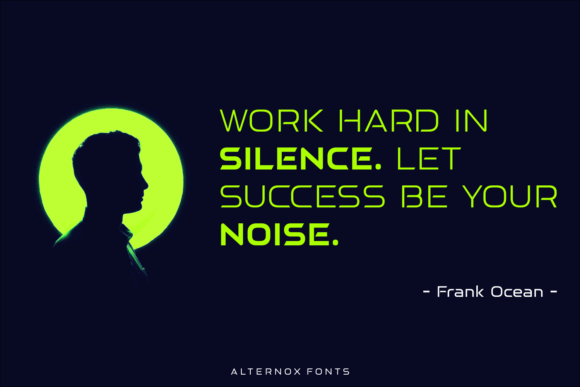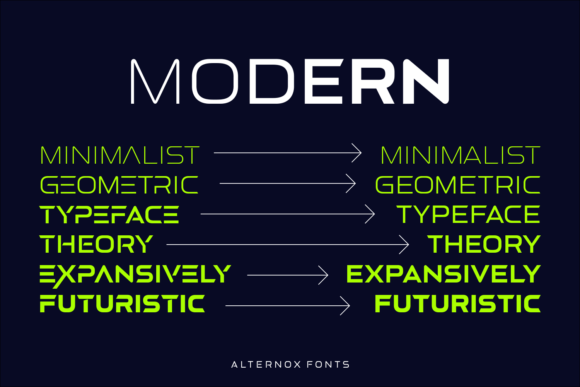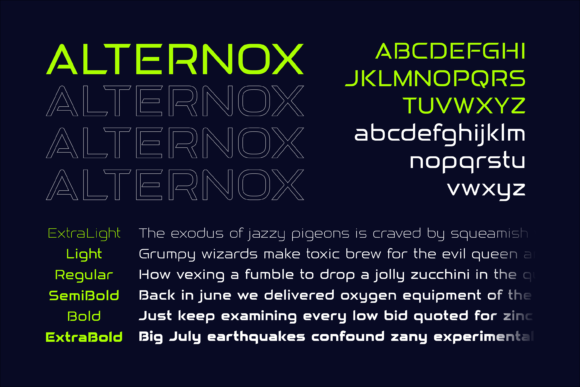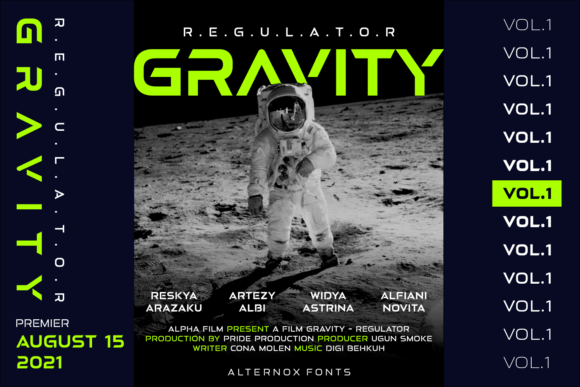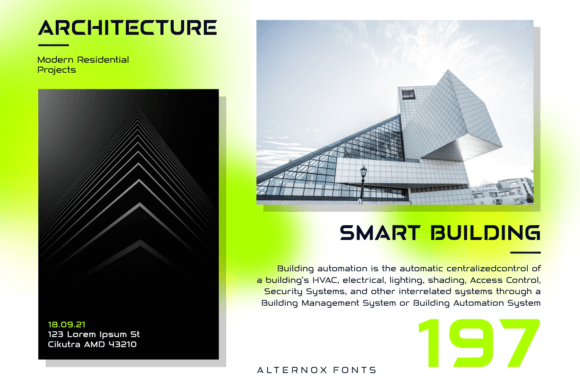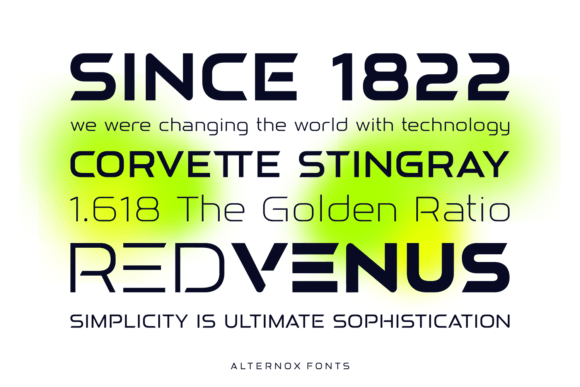
Introducing Alternox Font: The Ultimate Futuristic Sans Serif Font
In the world of typography, a font can make or break a design. For designers and crafters looking for a modern, clean, and professional look, Alternox Font is the perfect solution. This futuristic multipurpose sans serif font family is designed with sophisticated geometric shapes, making it ideal for a wide range of projects.
What Makes Alternox Font Stand Out?
Alternox Font is not just another sans serif font. Its unique geometric shapes give it a futuristic feel that’s perfect for designs that require a modern touch. The font is versatile and can be used for various projects, including logos and brand identity, technology, business cards, web design, stationery, displays, sports, and more.
Key Features of Alternox Font
- Multipurpose: Alternox Font is designed to be versatile and can be used for a wide range of projects, from digital designs to print materials.
- PUA Encoded: The font is PUA (Private Use Area) encoded, which means you can access all the glyphs and ligatures with ease. This feature makes it easy to use and customize the font to suit your design needs.
- Geometric Shapes: The font features sophisticated geometric shapes that give it a modern and clean look.
- Sans Serif: The sans serif design of Alternox Font makes it perfect for digital designs, as it remains clear and legible even at small sizes.
Use Cases for Alternox Font
Alternox Font is perfect for designers and crafters who want to create modern and professional designs. Here are some use cases where Alternox Font shines:
- Logos and Brand Identity: Create a lasting impression with a unique and modern logo that stands out from the crowd.
- Technology: Use Alternox Font to create a futuristic and modern look for technology-related designs, such as software interfaces, apps, and websites.
- Business Cards: Make a great impression with a clean and professional business card design that showcases your brand’s personality.
- Web Design: Use Alternox Font to create a modern and responsive website that adapts to different screen sizes and devices.
- Stationery: Add a touch of modernity to your stationery designs, such as brochures, flyers, and posters.
- Displays: Use Alternox Font to create eye-catching display designs, such as billboards, signage, and exhibition displays.
- Sports: Create a bold and modern look for sports-related designs, such as team logos, jerseys, and sports equipment.
Why Choose Alternox Font?
With so many fonts available, why choose Alternox Font? Here are a few reasons:
- Unique Design: Alternox Font has a unique and futuristic design that sets it apart from other fonts.
- Versatility: The font is multipurpose and can be used for a wide range of projects.
- Easy to Use: Alternox Font is PUA encoded, making it easy to access all the glyphs and ligatures.
- Modern and Clean: The font has a modern and clean look that’s perfect for designs that require a professional touch.
Alternox Font is the perfect solution for designers and crafters looking for a modern, clean, and professional font. With its unique geometric shapes, versatility, and ease of use, Alternox Font is ideal for a wide range of projects. Whether you’re creating logos and brand identity, technology designs, business cards, or web designs, Alternox Font is the perfect choice.